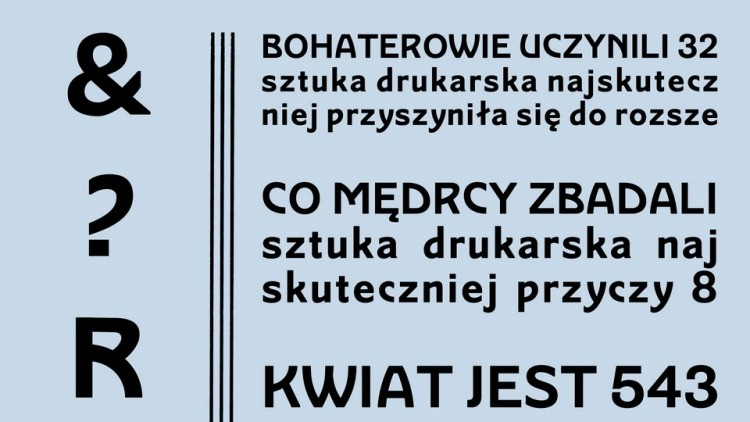
Renesans Font
Renesans Sans Serif Font
It’s an all-new-styled family, which kind of looks like Art Deco Style. The prototype of the Renaissance typeface was created in 1901 in the Berlin foundry of Hermann Berthold and was then called Secession. It appeared in several thickness and decorative varieties. Its copy was later cast in the Warsaw foundry of Idźkowski. It was also given a new name – Renaissance, which had little to do with the drawing of the letters. Our version of the Renaissance is based on the thickest version of Idźkowski’s patterns. Compared to the original, its proportions have been slightly changed to better reflect those of Colombia.
Renaissance is a decorative sans serif typeface. It has a display character – suitable for headings, titles, cover and poster. It is designed to be used in a set with other typeface – Colombia.